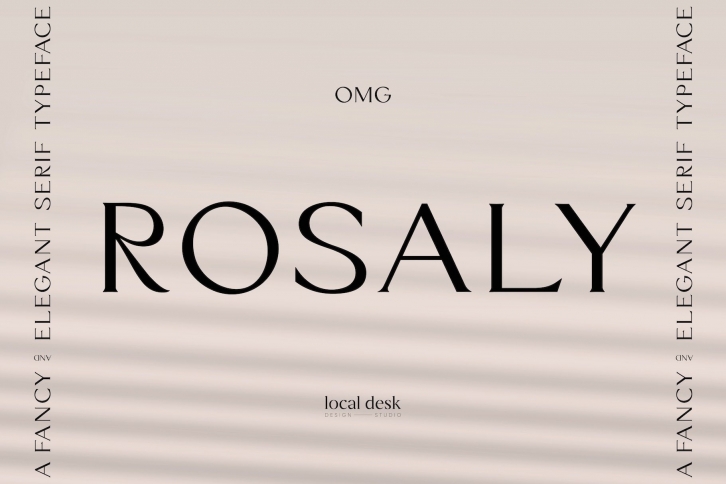
Rosaly is a distinctive, elegant serif typeface inspired by unusual & organic shapes. Unique curves and contrasting lines create this memorable font with a fancy vibe. Rosaly is perfectly suited for designing modern brands, contemporary packaging, unique quotes, timeless websites and so much more!